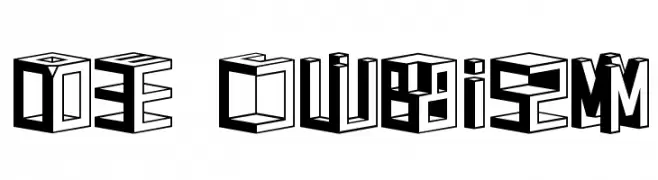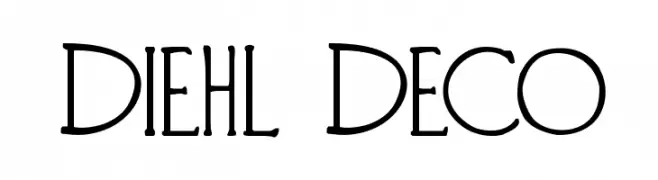
A bold, decorative font with a three-dimensional outline and modern, edgy style.
A stylish Art Deco-inspired font with geometric precision and elegance.
A bold, rugged font with a graffiti-inspired, three-dimensional look.
A bold, modern outline font with a three-dimensional effect.
A bold, three-dimensional geometric font inspired by cubism.
A futuristic, geometric outline font with a layered, three-dimensional appearance.
A bold, cartoonish font with a playful, three-dimensional effect.